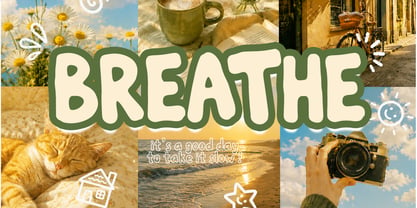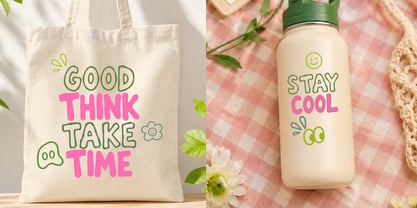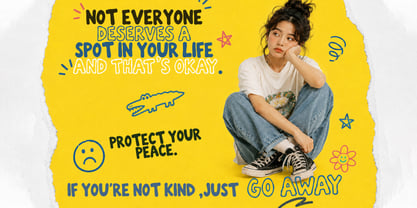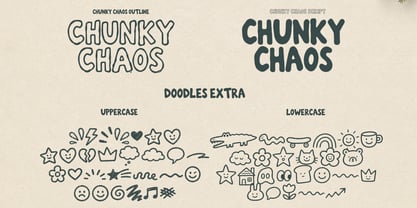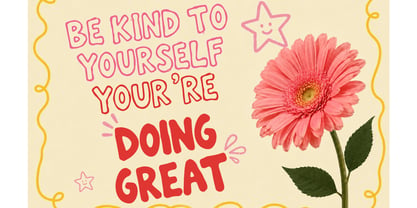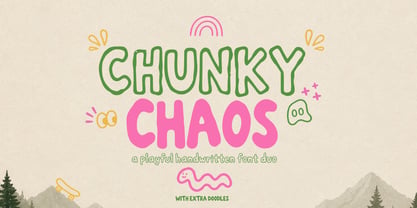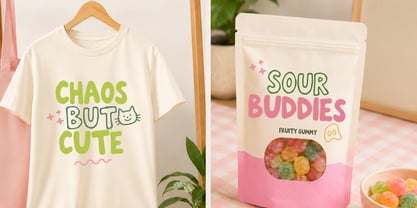
Chunky Chaos
The Chunky Chaos Font Family was designed by Muhammad Zaini and published by Cocodesign. Chunky Chaos contains 3 styles and family package options. More about this family
Chunky Chaos – Playful Handwritten Font Duo
Chunky Chaos is a fun and cheerful handwritten font duo featuring bold rounded letters, playful outlines, and whimsical doodles. Designed with a charming handmade feel, this font brings warmth, creativity, and personality to a wide range of design projects.
The combination of a chunky filled style and a matching outline version creates endless possibilities for eye-catching typography. Perfect for adding a joyful and friendly touch to both digital and print designs.
• Uppercase Letters (A–Z)
• Lowercase Letters (a–z)
• Numbers & Punctuation
• Symbols & Special Characters
• Outline Font Version
• Solid Font Version
• Bonus Hand-Drawn Doodles
• Multilingual Support